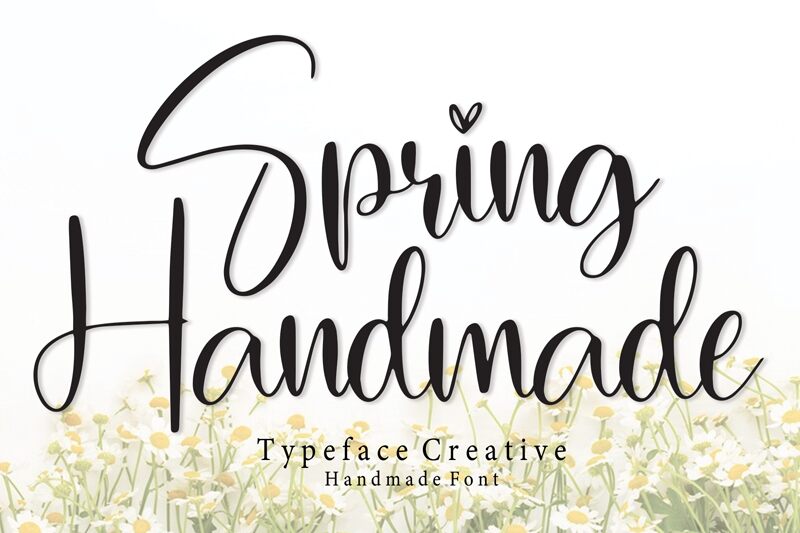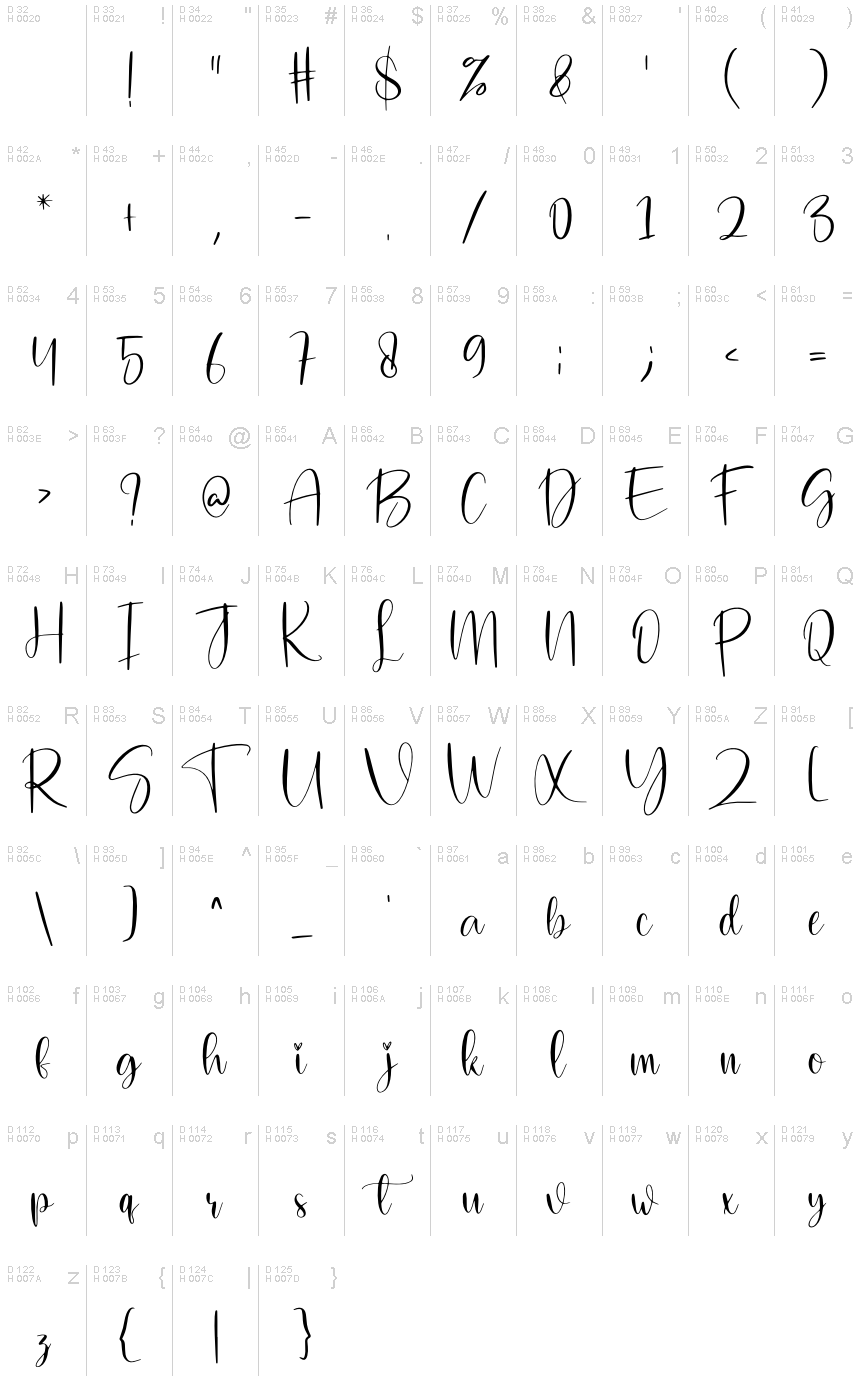
Spring Handmade font by Scratchones is a free handwritten font with a modern touch. Its letters are with delicate curves creating elegant flowing connections each time. Gentle strokes are used to offer a soft visual presence that remains prominent when its exquisite letters are combined.
With several design purposes in mind, the font is intended for use in advertising, branding, packaging design, quotes typography, headers and magazine covers so wait no more to put it into action!